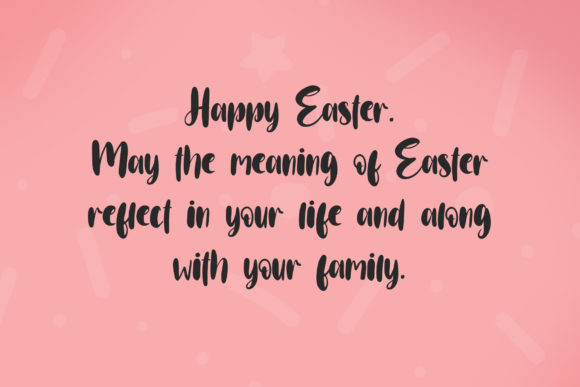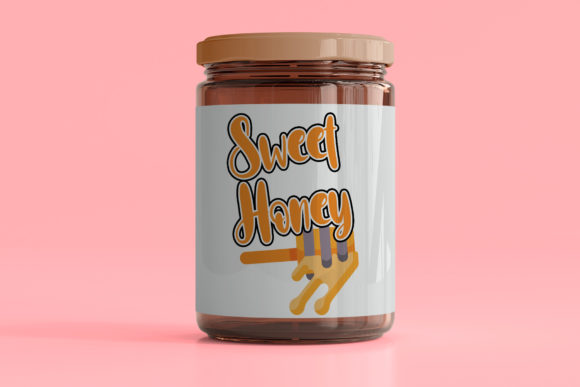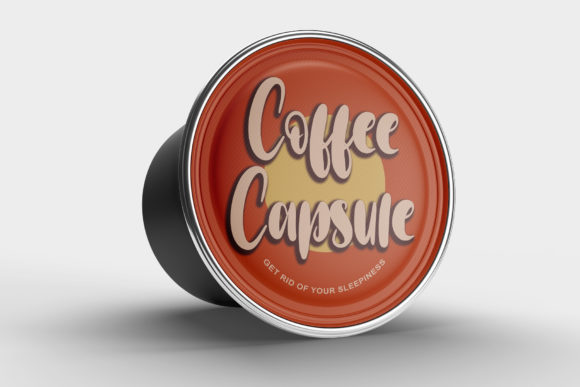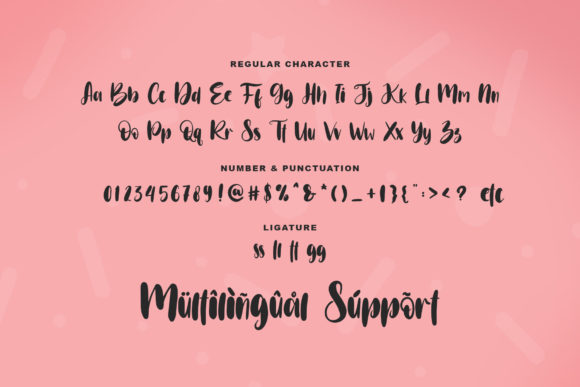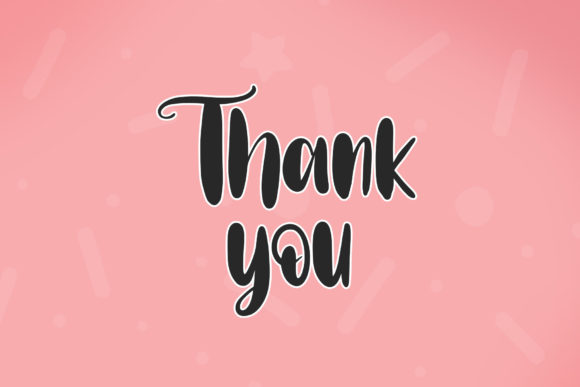
Hello Easteria Font: Elevate Your Designs with a Touch of Whimsy
Hello Easteria is a trendy handwritten font that has a modern yet whimsical style and it will undoubtedly immerse your designs into a charming world. This beautiful font is perfect for designers and crafters looking to add a personal touch to their work. In this article, we’ll dive into the features and benefits of Hello Easteria Font, and explore how you can use it to take your designs to the next level.
The Characteristics of Hello Easteria Font
Hello Easteria Font boasts a unique and stylish handwritten look that is both modern and playful. Its whimsical style makes it perfect for designs that require a touch of personality and charm. The font’s clean lines and elegant curves give it a sophisticated feel, while its friendly and approachable tone make it ideal for a wide range of design projects.
Key Features of Hello Easteria Font
- Modern yet Whimsical Style: Hello Easteria Font has a unique blend of modern and whimsical elements, making it perfect for designers who want to create unique and eye-catching designs.
- Handwritten Look: The font’s handwritten look gives it a personal and friendly feel, making it ideal for designs that require a touch of warmth and personality.
- Clean Lines and Elegant Curves: The font’s clean lines and elegant curves give it a sophisticated feel, making it perfect for designs that require a touch of elegance and refinement.
- Multilingual Support: Hello Easteria Font supports multiple languages, making it a great choice for designers who work with international clients or create designs for a global audience.
Benefits of Using Hello Easteria Font
Hello Easteria Font offers a range of benefits for designers and crafters, including:
- Unique and Eye-Catching Designs: The font’s unique and stylish look makes it perfect for creating eye-catching designs that stand out from the crowd.
- Time-Saving: With Hello Easteria Font, you can create professional-looking designs in no time, saving you time and effort.
- Versatility: The font’s versatility makes it perfect for a wide range of design projects, from branding and advertising to packaging and digital media.
Design Ideas Using Hello Easteria Font
Hello Easteria Font is a versatile font that can be used in a wide range of design projects, including:
- Branding and Logo Design: Use Hello Easteria Font to create a unique and memorable brand identity.
- Social Media Graphics: Use the font to create eye-catching social media graphics that stand out from the crowd.
- Packaging Design: Use Hello Easteria Font to create beautiful and eye-catching packaging designs.
- Digital Media: Use the font to create engaging and interactive digital media, such as animations and videos.
Hello Easteria Font is a trendy handwritten font that offers a unique and stylish look that’s perfect for designers and crafters looking to add a touch of whimsy to their work. With its modern yet whimsical style, clean lines and elegant curves, and multilingual support, this font is perfect for a wide range of design projects. Whether you’re a professional designer or a DIY crafter, Hello Easteria Font is a great choice for anyone looking to create unique and eye-catching designs.